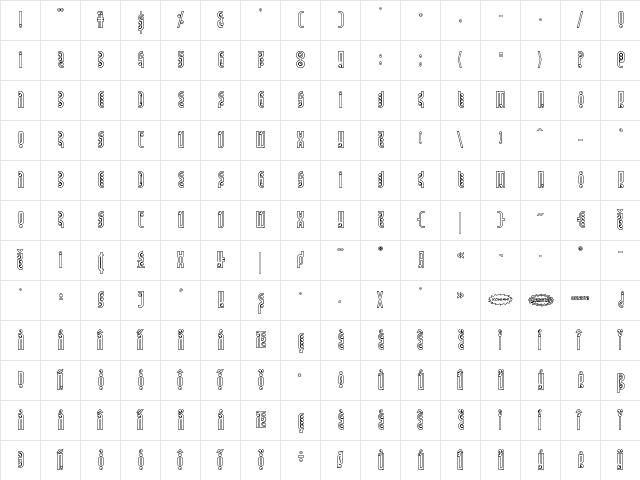
Underground Rose Outline
Design Context for Underground Rose Outline Typeface
Underground Rose Outline is built around its visual character rather than neutral utility — its distinctive forms are designed to make an impression at display sizes.
Font Pairing: Pair with a clean neutral sans-serif for body copy to let Underground Rose Outline's character lead without overwhelming the composition.
Pro Tip: Treat Underground Rose Outline as the centrepiece of your typographic hierarchy. One strong heading set in a decorative face can carry an entire layout.